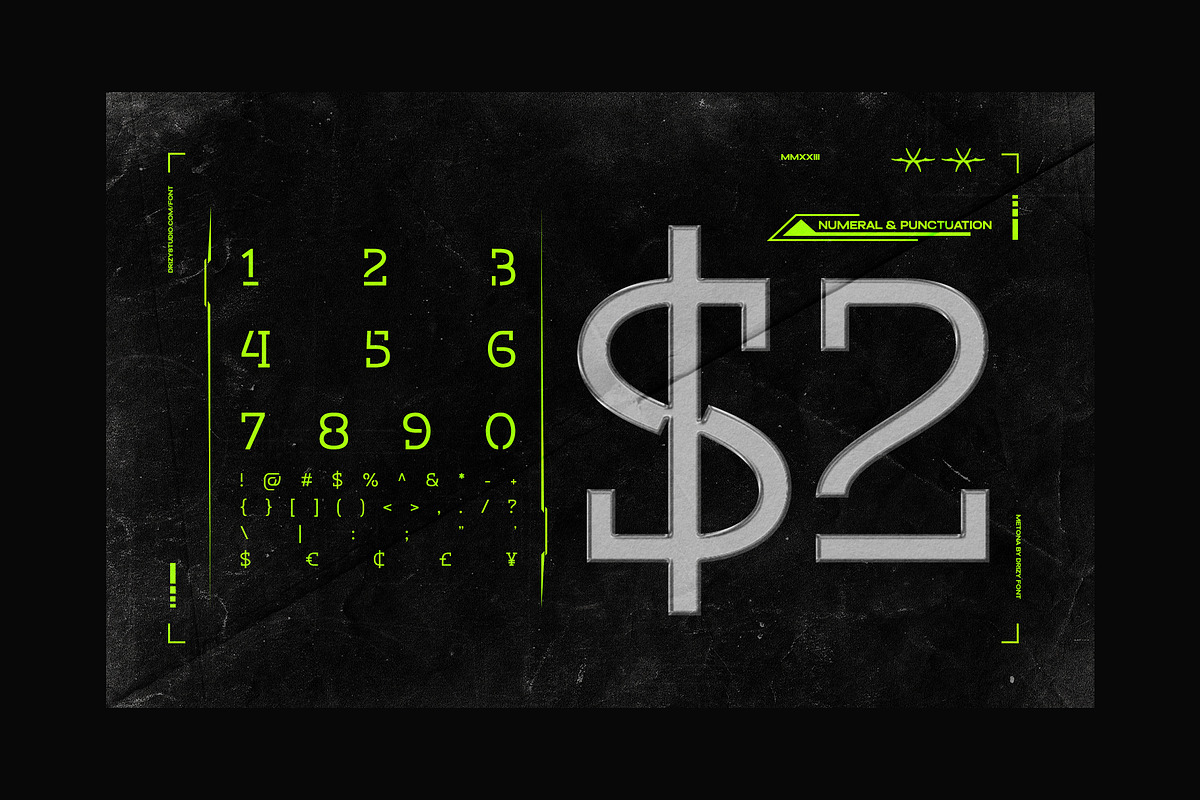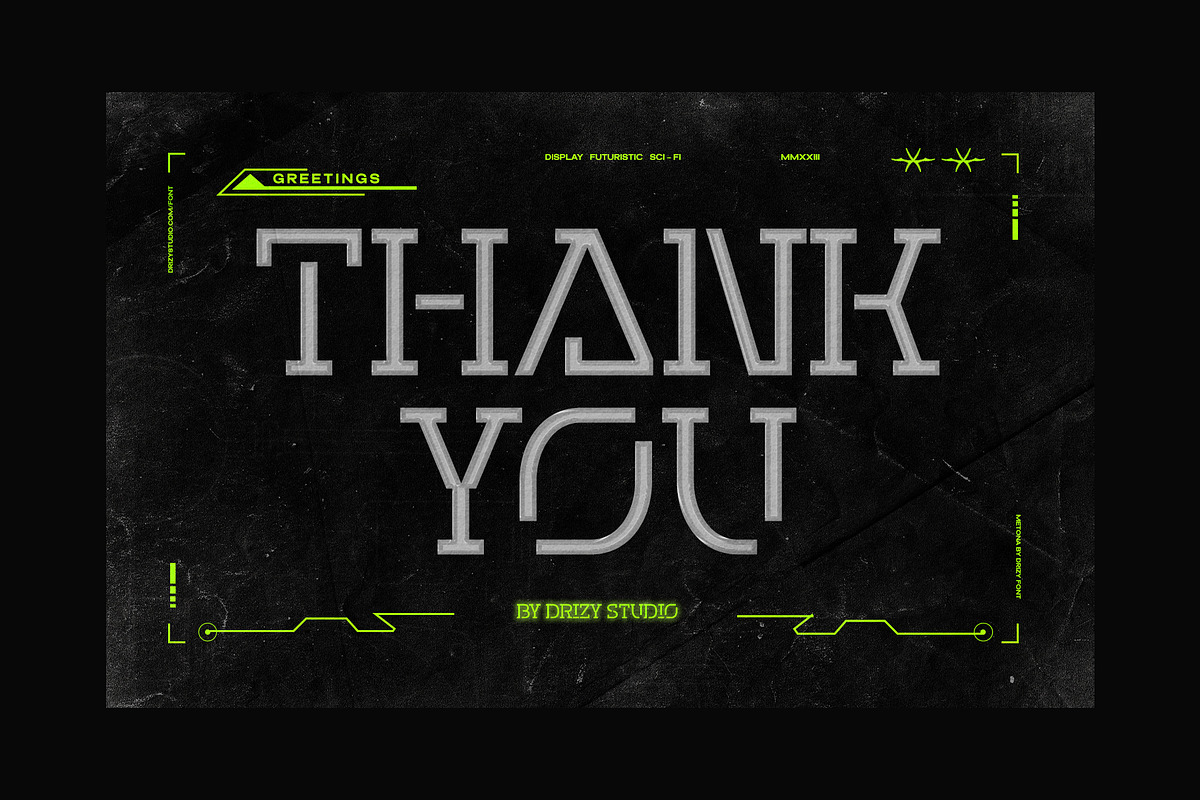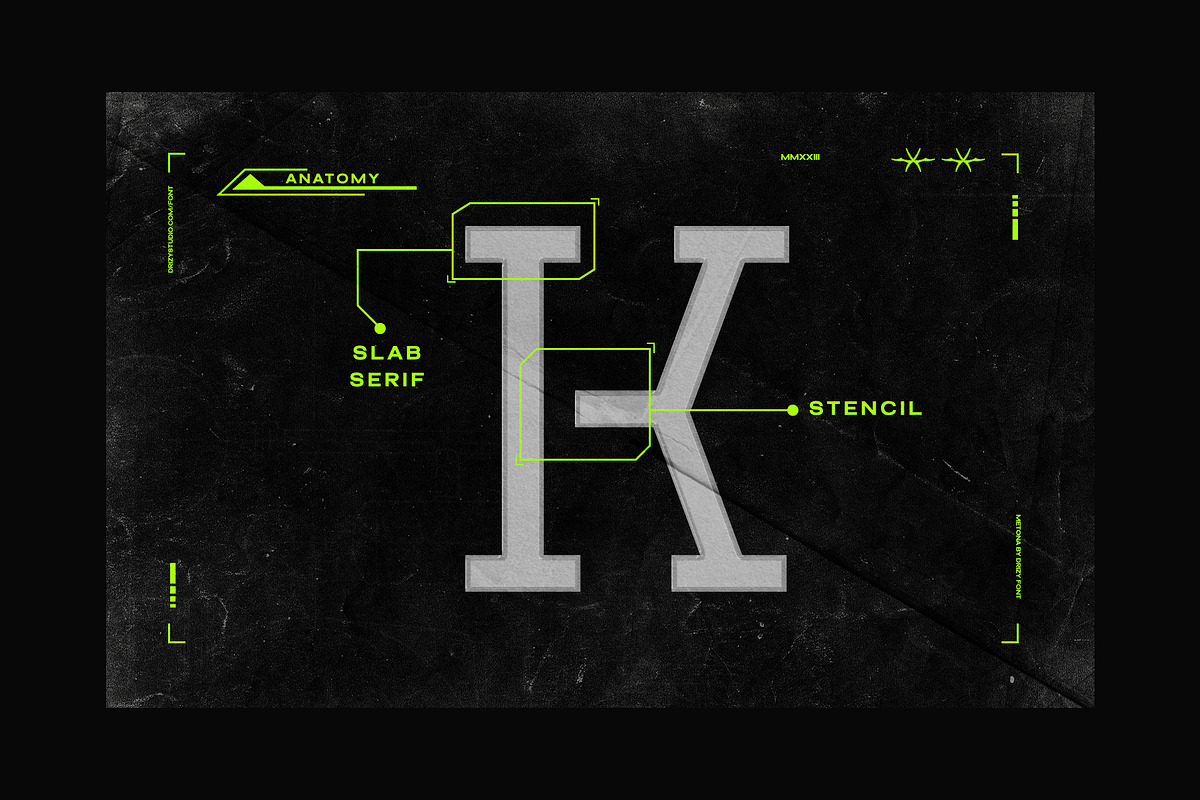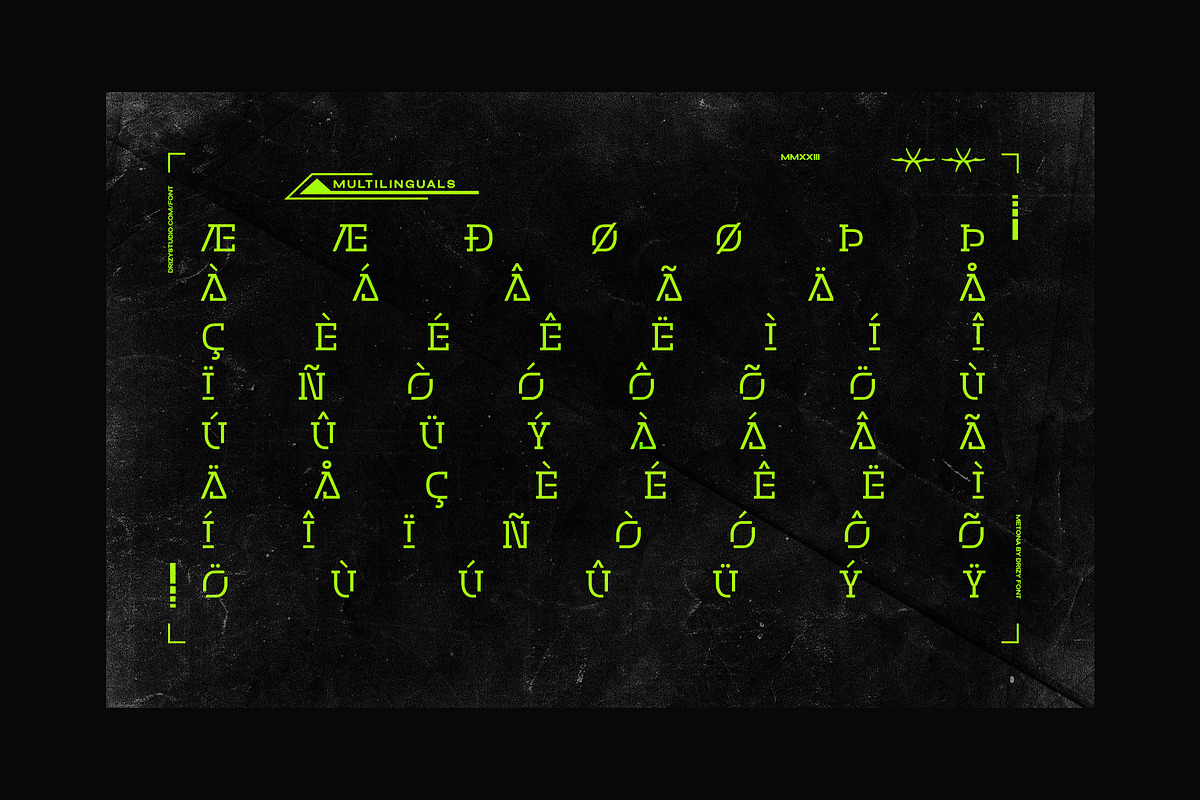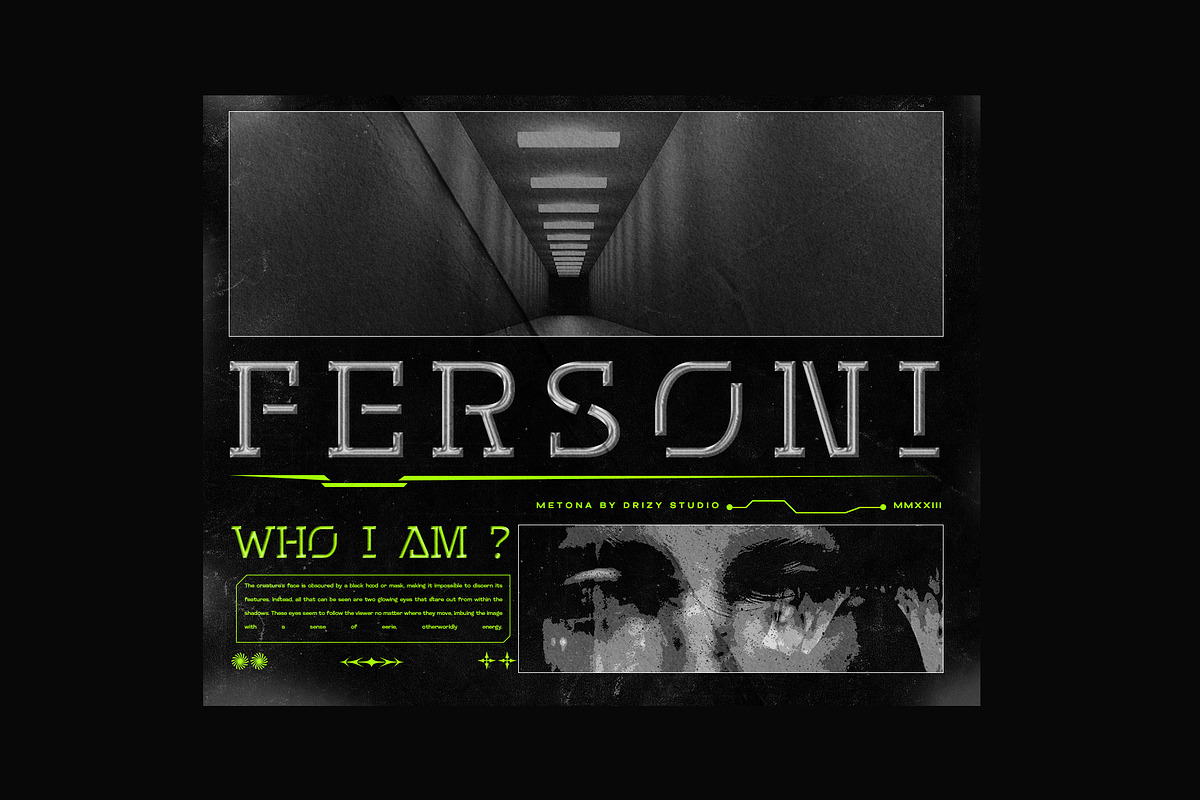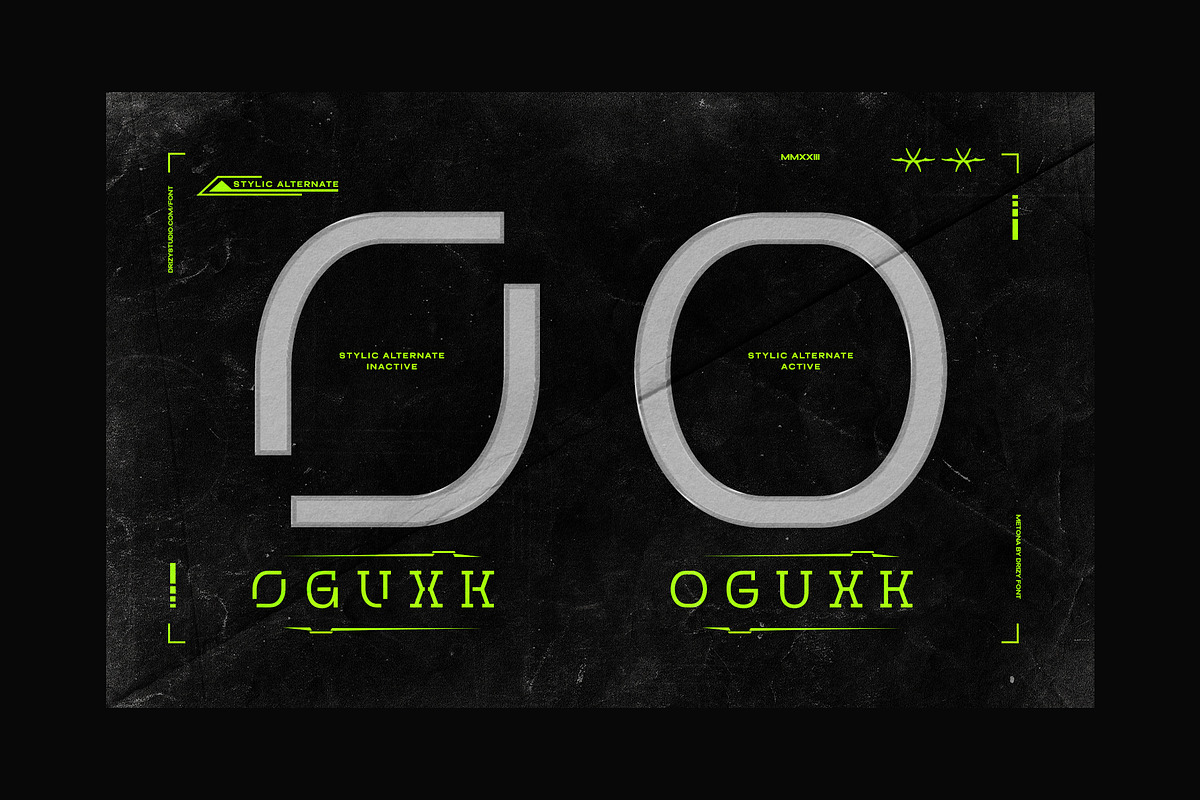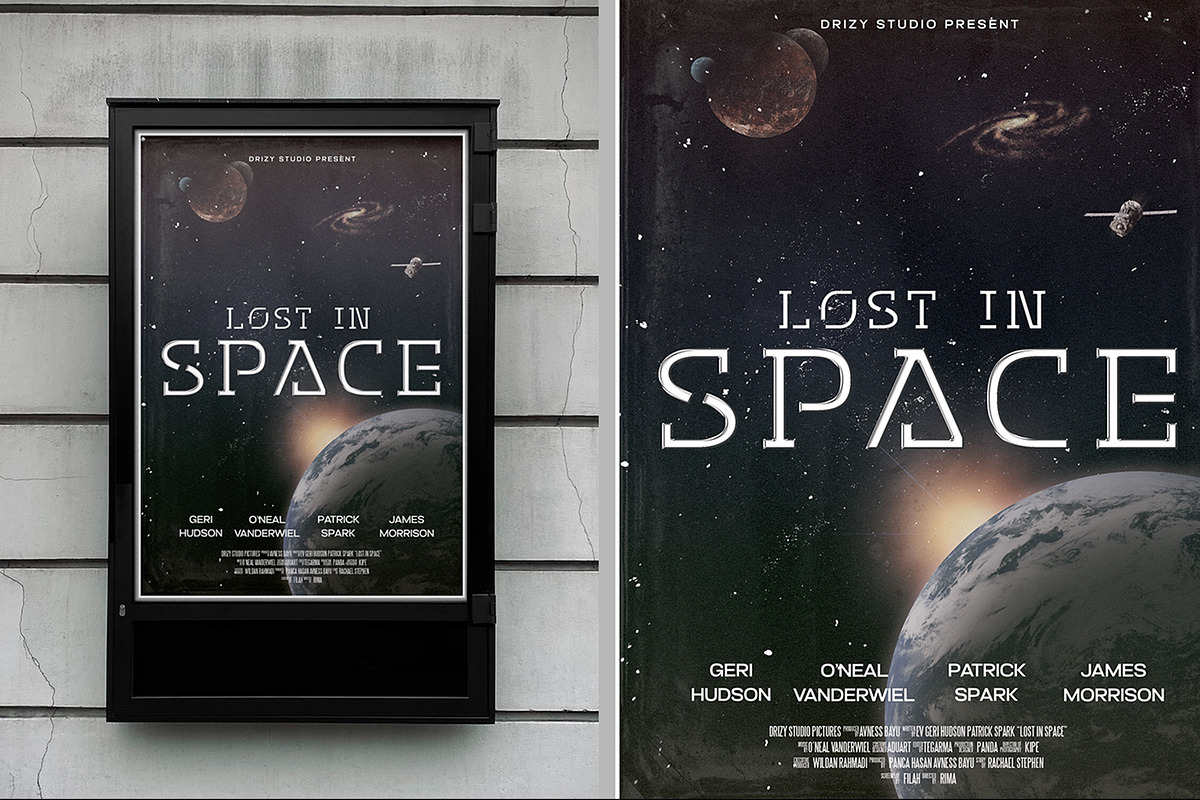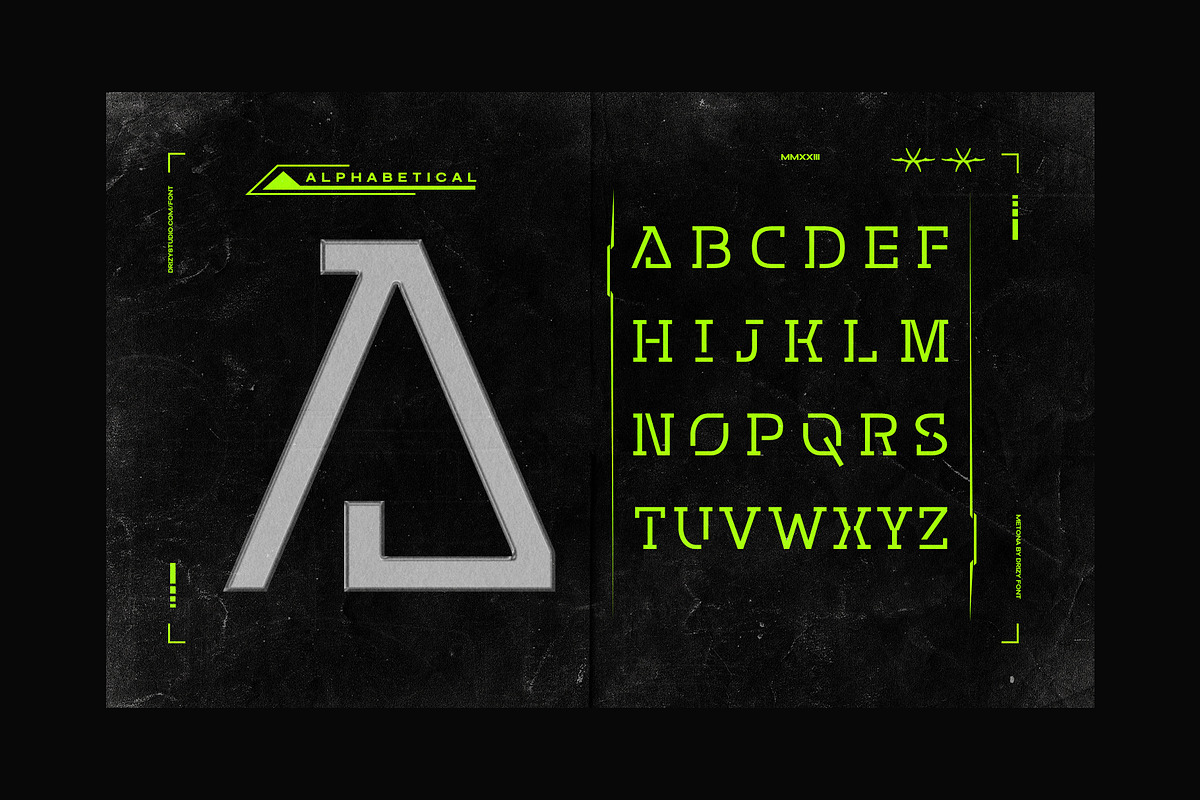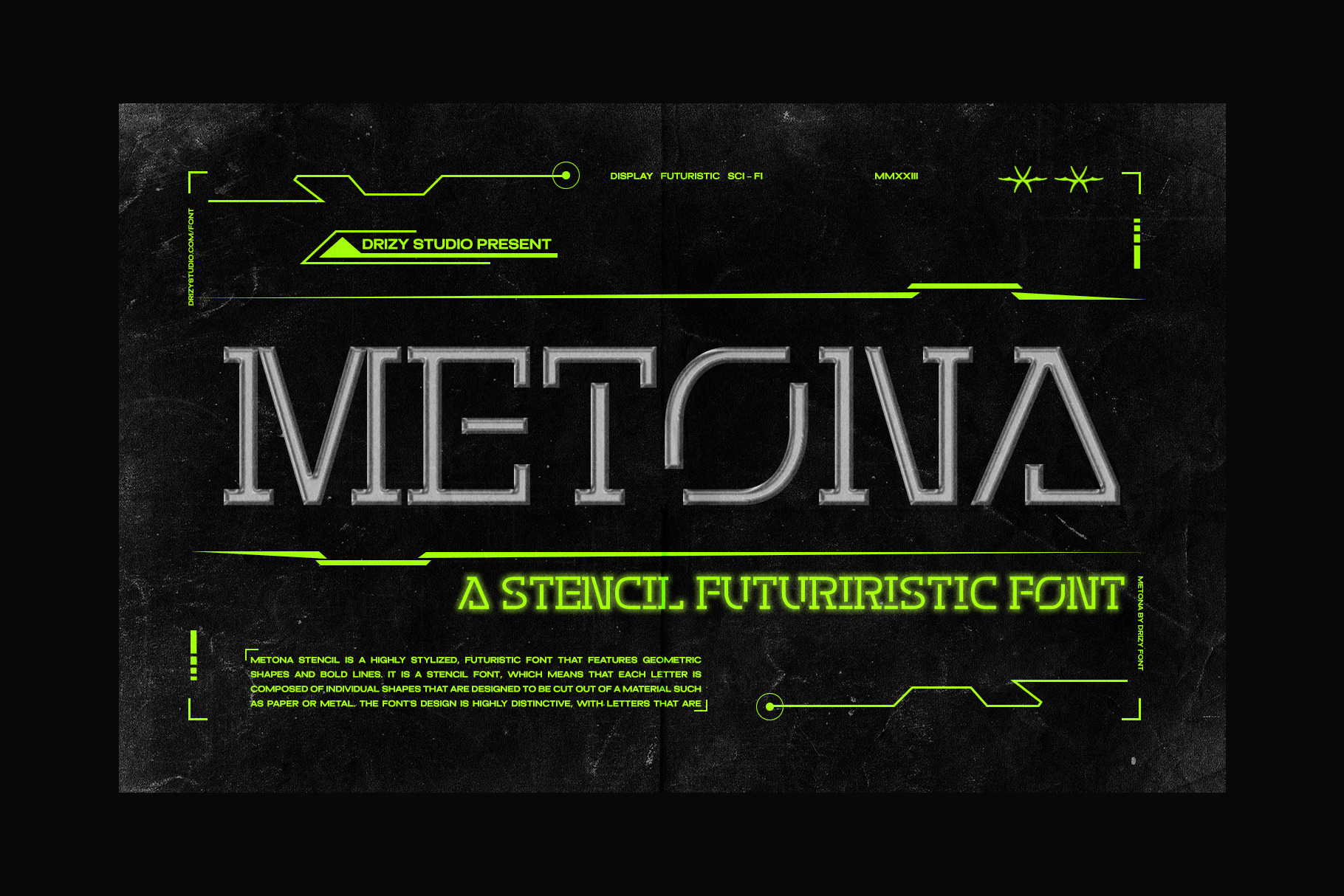
Metona - A Stencil Futuristic Font
Metona - A Stencil Futuristic Font Metona is A Stencil Futuristic Font from Drizy Studio. Step into the future with Metona, the sleek and bold stencil font that commands attention..
Metona features:
- Punctuation & Numbers
Spice up your project with this unique modern disconnected typeface!